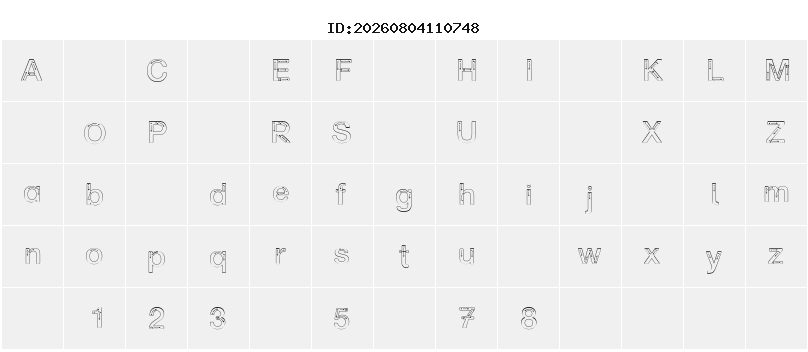
Nordspur Preview
• Font Name: Nordspur
• Full Font Name: Nordspur
About Nordspur.ttf
Nordspur.ttf is a modern, elegant sans-serif font designed for ultimate readability and visual harmony. Perfect for branding, headlines, web design, and print materials.